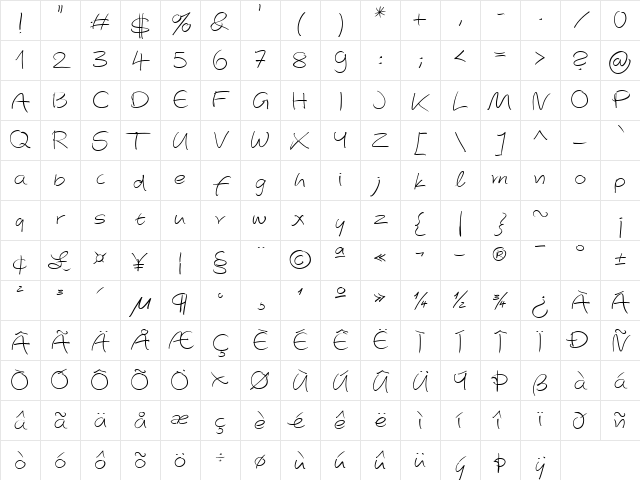
AutographScriptEF Regular
Copyright: copyright 251 1998 Elsner+Flake. All Rights Reserved. Design KOMA AMOK250, jakob & mei247ner 1998
Foundry: copyright Elsner+Flake
Design Context for AutographScriptEF
AutographScriptEF flows with the natural rhythm of handwritten lettering, making it ideal for designs that call for warmth and personal expression.
Font Pairing: Combine AutographScriptEF with a simple geometric sans for maximum contrast - the tension between flowing curves and clean structure is a classic typographic pairing.
Pro Tip: Use AutographScriptEF for short runs of text - names, titles, or taglines. Extended body copy in script faces tires the eye quickly.
Who designed the AutographScriptEF Regular font?